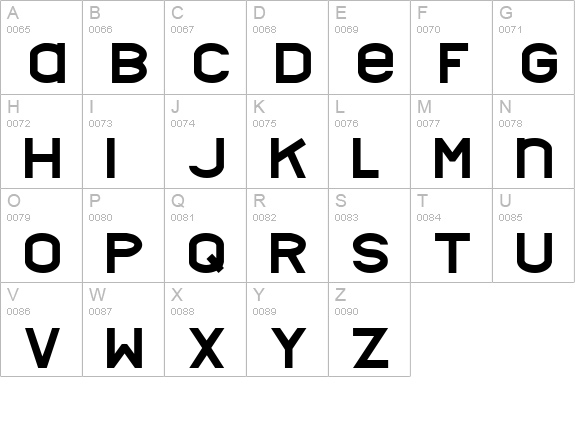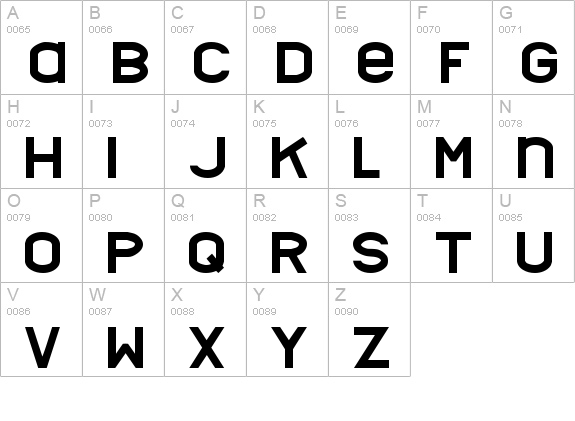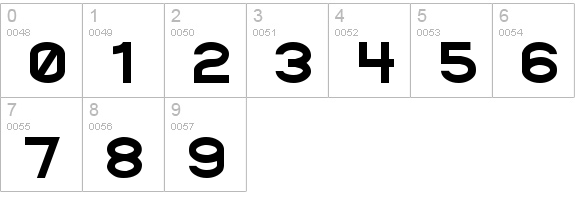
Introducing Nyctalopia font - a stunningly elegant typeface that embodies the essence of sophistication and modernity. With its sleek lines and graceful curves, Nyctalopia is the perfect choice for adding a touch of class to any project. Whether you're designing a logo, creating a poster, or crafting a stylish invitation, this font will elevate your work to new heights. What's even better is that Nyctalopia font is completely free to download at FontsMarket.com. That's right - you can access this exquisite font at no cost, making it the ideal choice for both personal and commercial use. Don't miss out on the opportunity to enhance your designs with the timeless beauty of Nyctalopia font. Download it today and let your creativity shine!